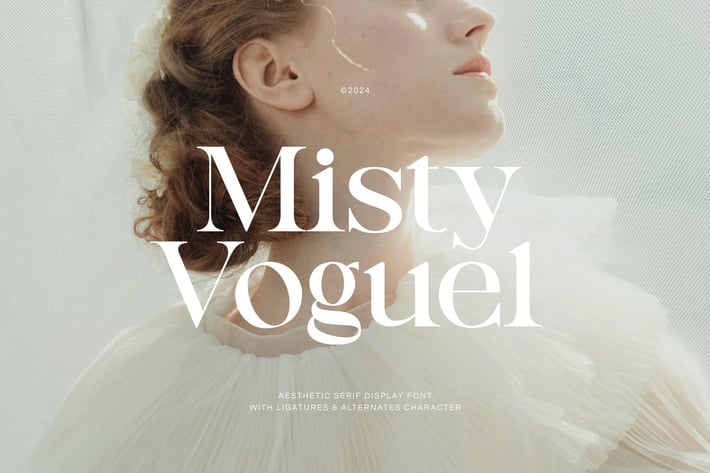
Misty Voguel - Aesthetic Serif Font
Misty Voguel aesthetic serif display font is a captivating typographic creation that seamlessly blends the aesthetic charm with a modern touch, have clean lines, beautiful, polished details. With unmatched serif elegance, suitable for trendy minimalist vibes!
Misty Voguel is a great choice for fashion projects, headlines, titles, posters, packagings, editorial, magazine, crafting a memorable wedding invitation, or branding a luxury product, covers and a wide range of striking and memorable designs.
Punctuation, Alternates and, Ligatures
Number and Symbol
Opentype Features